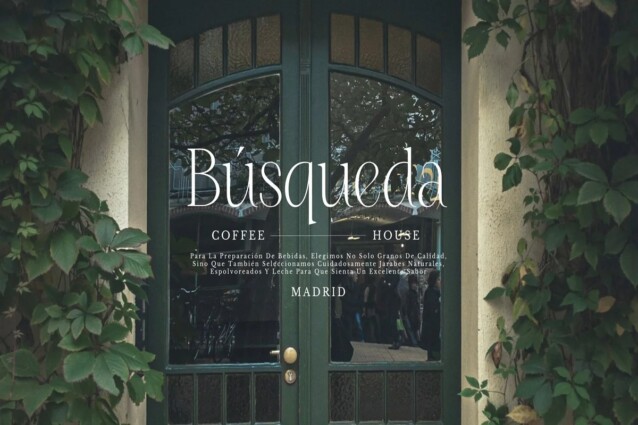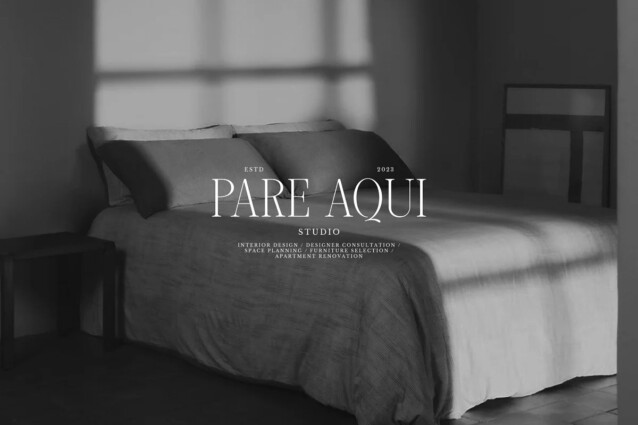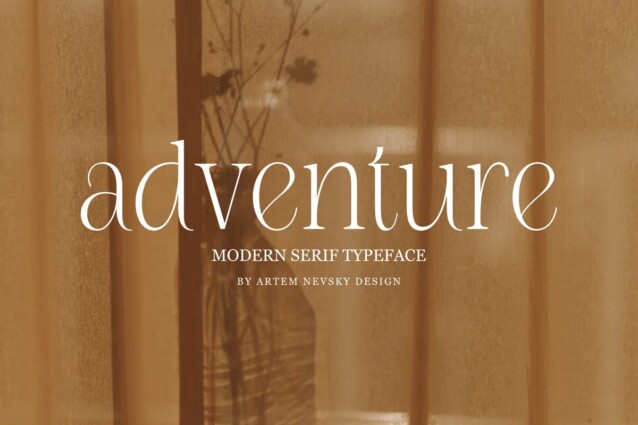
NT Adventure Font is a classic serif with a regal, elegant touch. This elegant font needs to be in your collection and is perfect for your next luxury design project. NT Adventure is perfectly suitable for creating classy yet still elegant designs such as logos, packaging, editorial, and more.